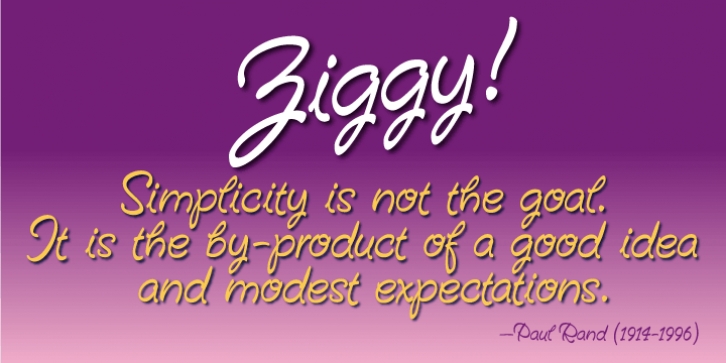
Ziggy was published by Jonahfonts. Ziggy contains 1 style.
A free-spirited hand-script font. Very similar to pre-computer hand-written letttering with a ruling pen.